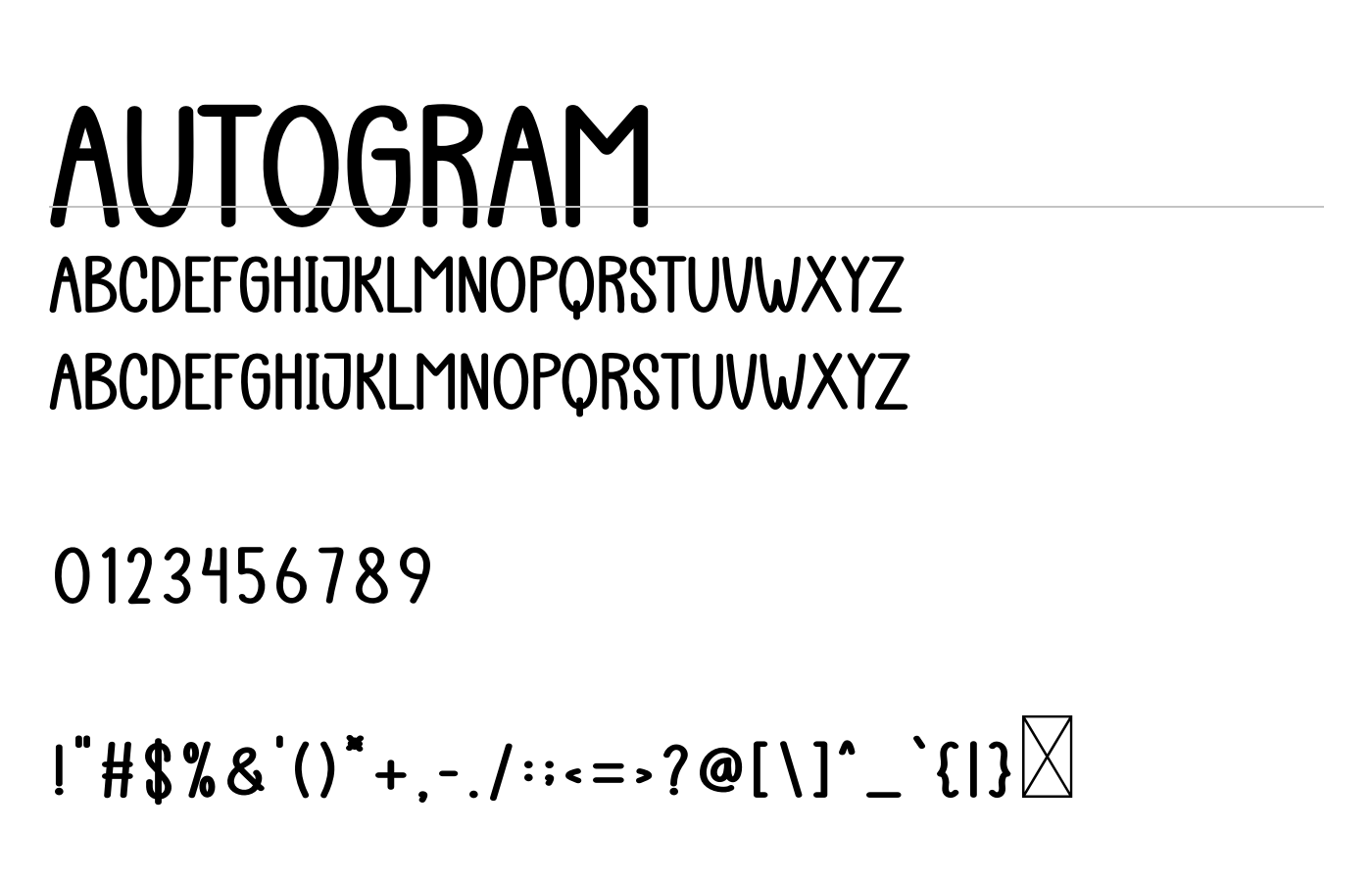
Autogram is a quirky sans serif font featuring tall, narrow letterforms with a playful, hand-drawn feel. Its consistent stroke weight and slightly irregular shapes give it a friendly and informal personality, making it perfect for creative projects, casual branding, or headlines that need a touch of charm and individuality. This font works well where a relaxed and approachable style is desired, offering clear readability with a unique character.
Autogram Font
About Autogram Font